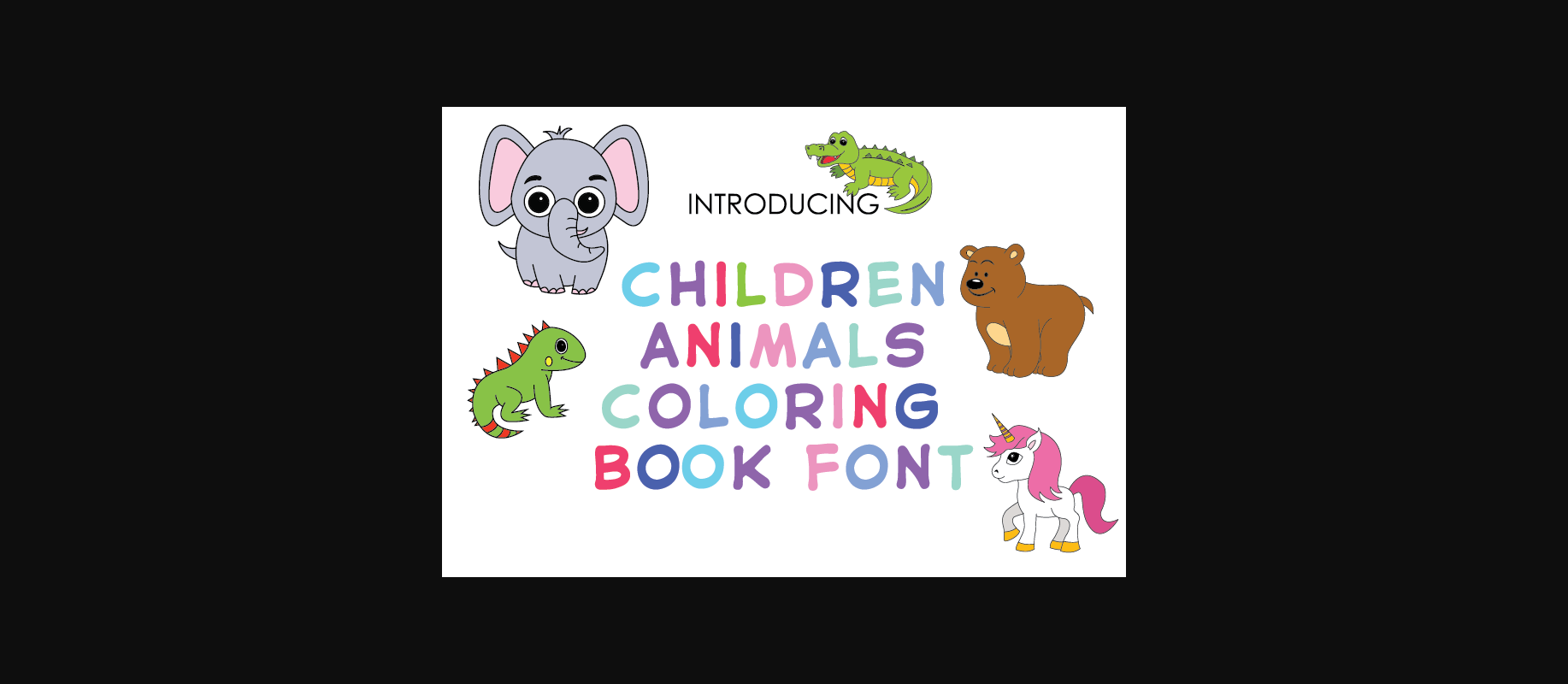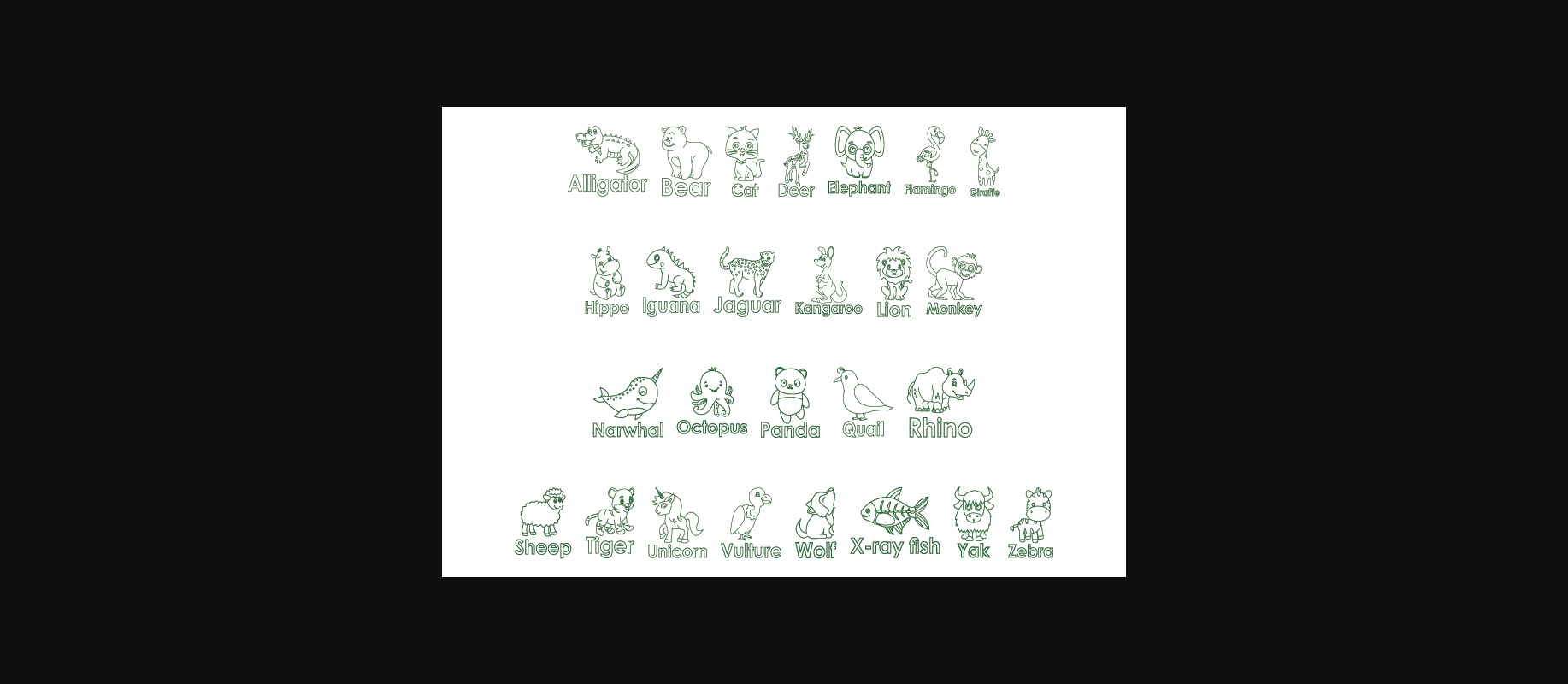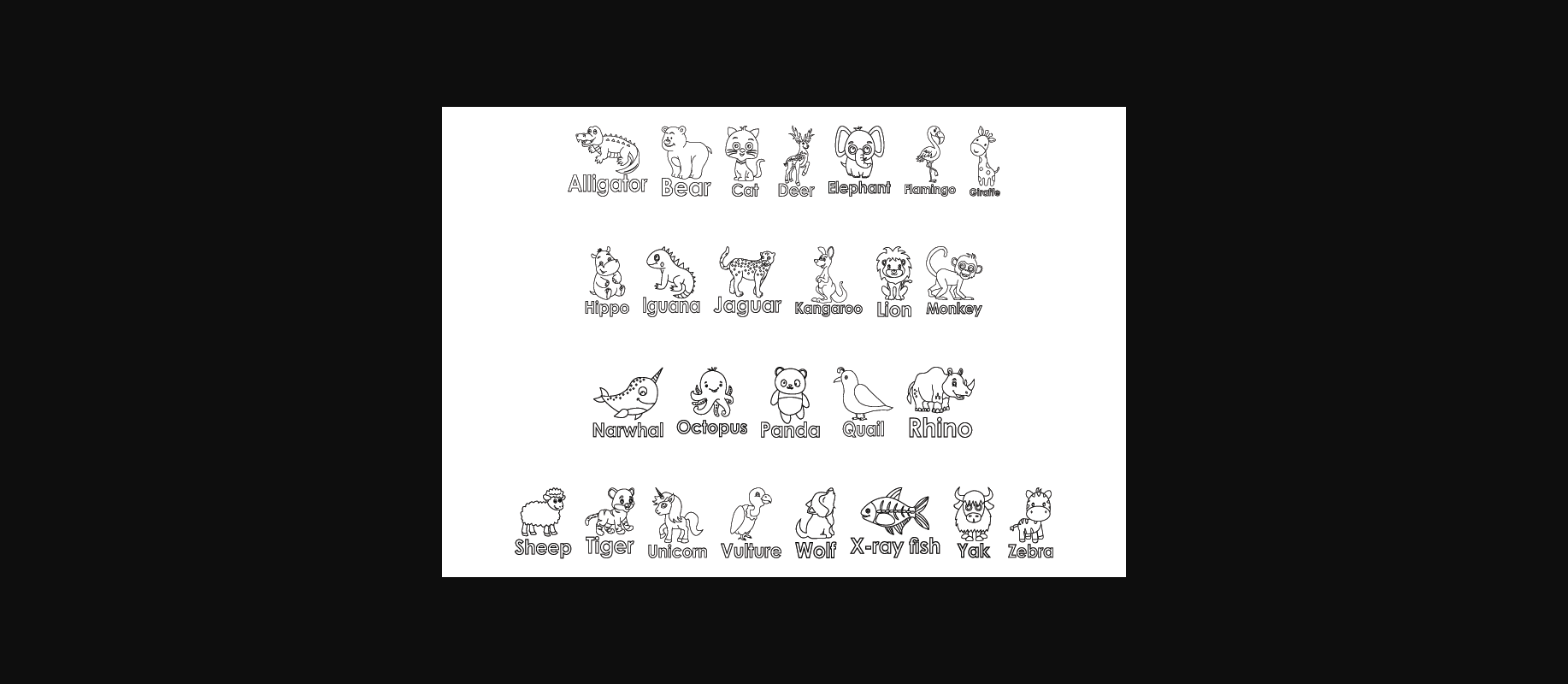
Children Animals Coloring Book Font
About Children Animals Coloring Book Font
Children Animals Coloring Book is a whimsical and charming decorative font that’s perfect for adding a playful touch to any design project. This font features intricate details, fanciful flourishes, and a childlike sense of wonder that will delight viewers of all ages. Ideal for children’s books, greeting cards, invitations, and more, this font is sure to bring joy and whimsy to your work.